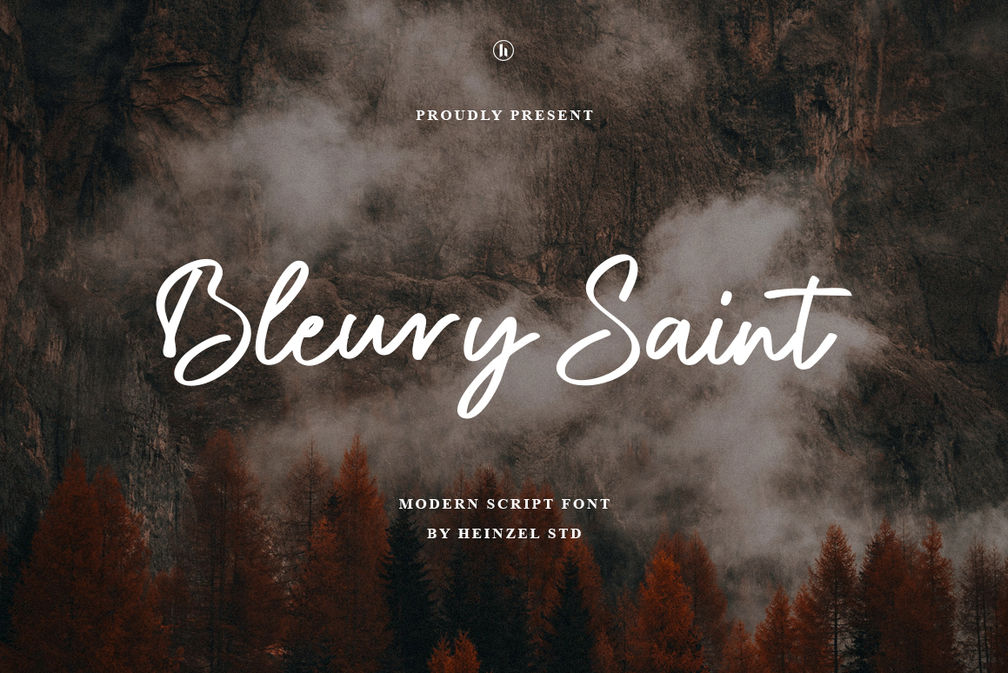
Bleury Saint Modern Script Font
Bleury Saint is a stylish modern script font that brings a touch of elegance and charm to any design. With smooth curves, natural strokes, and a handwritten feel, this font is perfect for branding, logos, invitations, social media, packaging, and creative projects. Its versatile style makes it suitable for both formal and casual designs, adding a personal and authentic touch.
Whether you want to create a romantic wedding invitation, a bold signature logo, or eye-catching product packaging, Bleury Saint will elevate your work with its sophisticated yet approachable look. This script font is easy to use, highly readable, and works beautifully in both print and digital media.
Bleury Saint Features:
- Uppercase and Lowercase
- Numerical and Punctuation
- Ligatures
- Multilingual Language